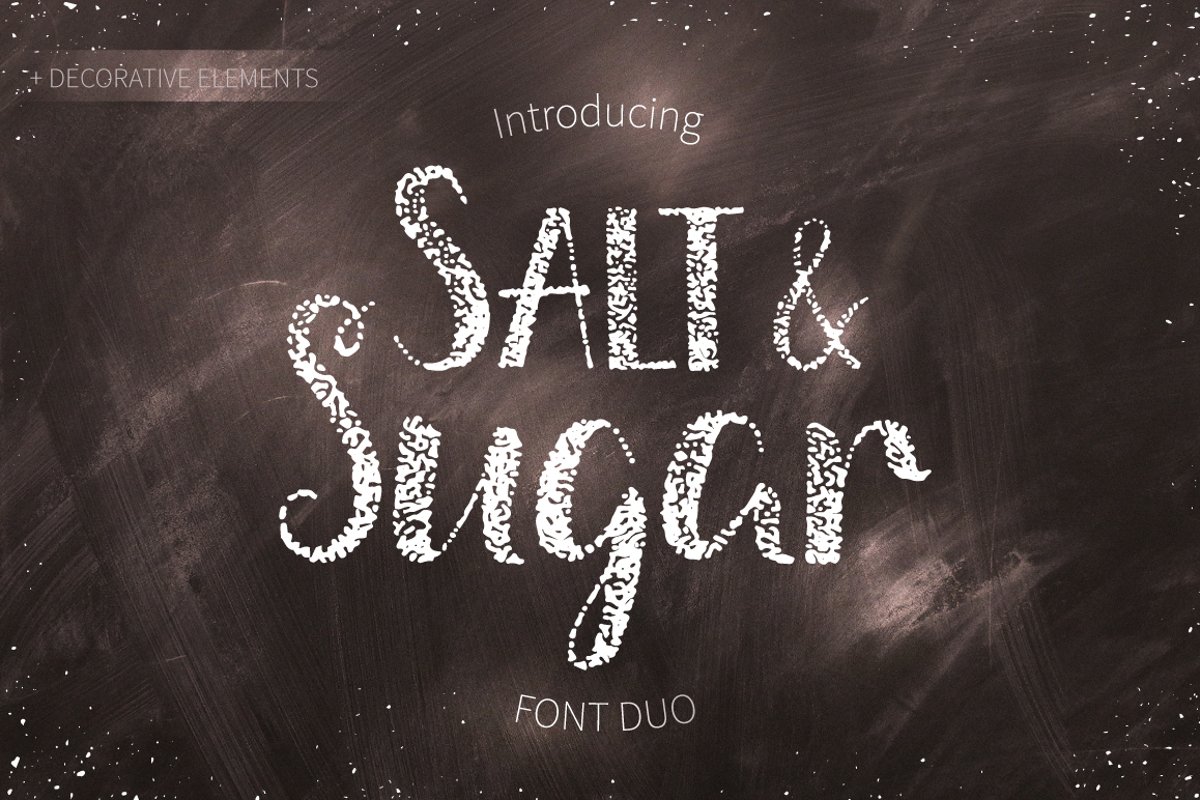
Salt & Sugar.Hand Drawn Font Duo
Salt-Regular
Sugar-Regular
Salt & Sugar is a handwritten font duo (sans serif and script) in uppercase and lowercase. It is perfect for branding, packaging design, posters, stationery, cards and much more.You will get: